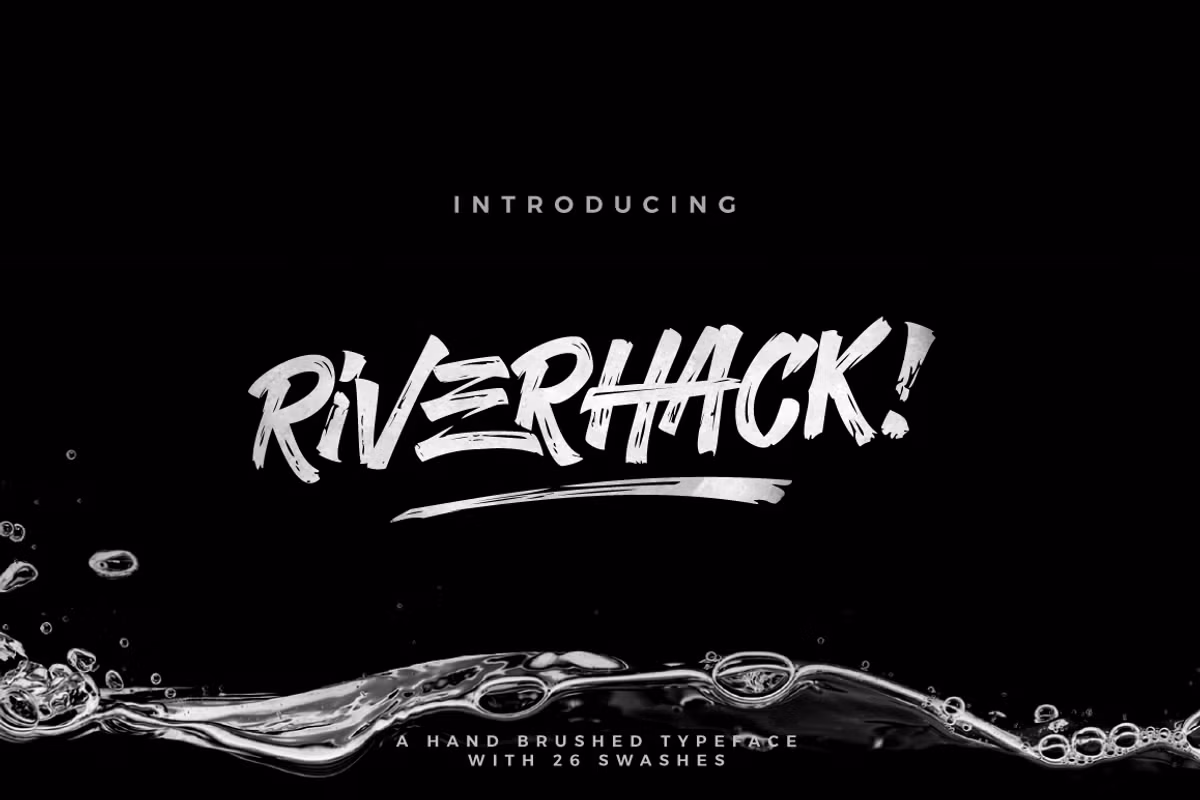
Riverhack Brush Font Free Download is a bold, textured typeface inspired by real brush strokes—perfect for edgy branding, posters, apparel design, and music-related graphics. Its raw, energetic style delivers a handcrafted feel that stands out in both print and digital projects. Please note that you must purchase this font for commercial use, but it is available as a free download for testing purposes. Inject creativity and attitude into your designs with Riverhack Brush Font Free Download, and give your typography the punch and personality it deserves.